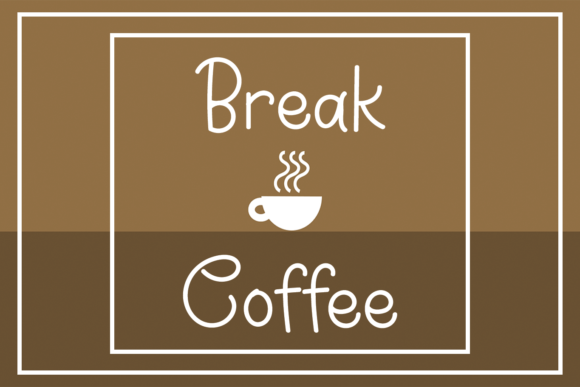
Introducing Break Coffee - the font that will add a touch of charm and elegance to your business website. This exquisite script font, brought to life by the talented Erik Studio, exudes sophistication and professionalism, making it the perfect choice for creating a lasting impression on your visitors.
With its clean, thin, and smooth vibe, Break Coffee brings a sense of lightness and airiness to your designs. The delicate strokes and graceful curves of each letter add a personal touch, making your website feel warm and inviting. Whether you're showcasing your products, services, or simply sharing your company's story, Break Coffee will elevate your online presence and leave a lasting impression.
Whether you're a seasoned designer or a creative entrepreneur, Break Coffee is the perfect font for adding a touch of sophistication to your business website. Its timeless beauty will complement any design, capturing your audience's attention and creating a memorable experience. So why wait? Download Break Coffee today and unlock the potential of your business website!